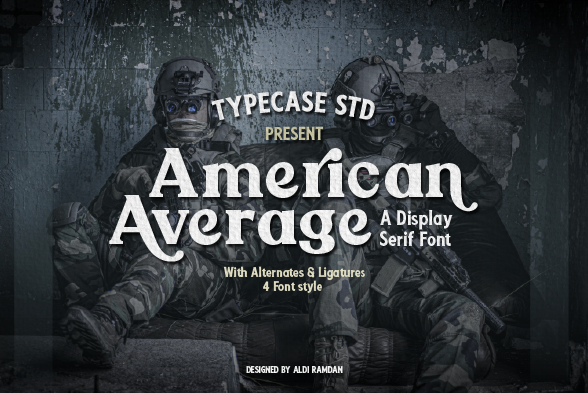
Preview and download American Average Font. Created by Aldi Ramdan in Basic Serif styles with Free for personal use license.
NOTE: American Average is a slick and modern serif font. is a stylish font. It has a modern and retro look. Comes with alternatives and binders, helps create stunning logos, quotes, posts, blog posts, branding projects, magazine imagery, wedding invitations, social media, prints, stickers, shirts and much more There are lots of fun style alternatives available to use with this font. These letters are embedded into the font file and are easily accessible in programs such as photoshop and illustrator. I really hope you will enjoy using the American Average font and that it will be the perfect addition to your font collection! Contact me with an inbox message If you have any questions. Thank You! Happy Creative. By installing or using this font, you are agree to the Product Usage Agreement: - This demo font is ONLY for PERSONAL USE. NO COMMERCIAL USE ALLOWED! - Here is the link to purchase full version and commercial license: https://www.behance.net/aldiramdan - For Corporate use you have to purchase Corporate license - If you need a custom license please contact us at foundry: Aldiwangsadipa@gmail.com - Any donation are very appreciated. Paypal account for donation : https://paypal.me/aldyramdhan?locale.x=id_ID More... |